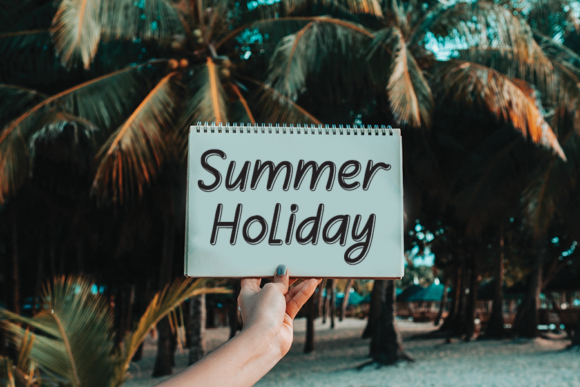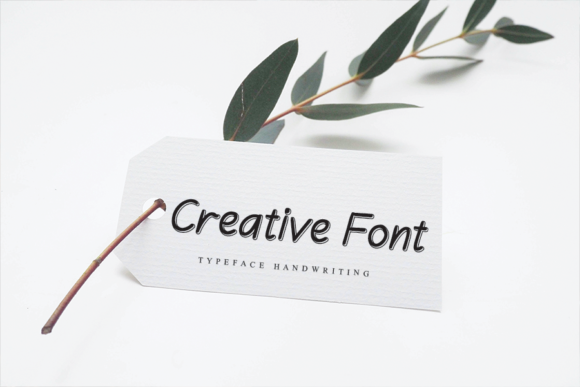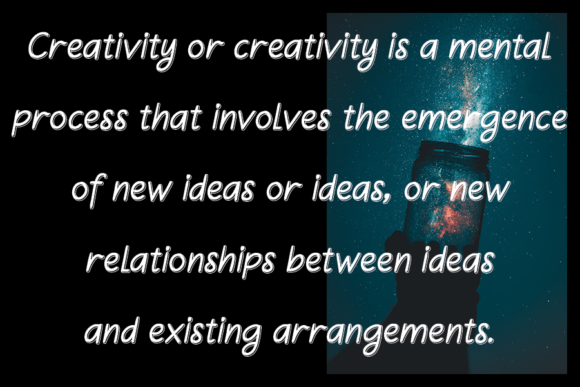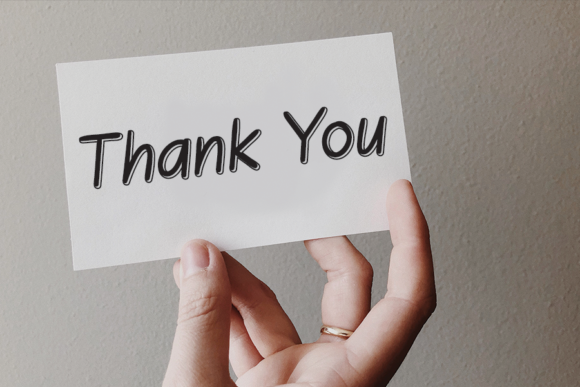
About Molynegia Font
Molynegia feels equally charming and elegant. It is perfect for wall displays, wedding invitations, social media posts, advertisement, product packaging, labels, photography, watermarks, invitations, stationery,
and more!